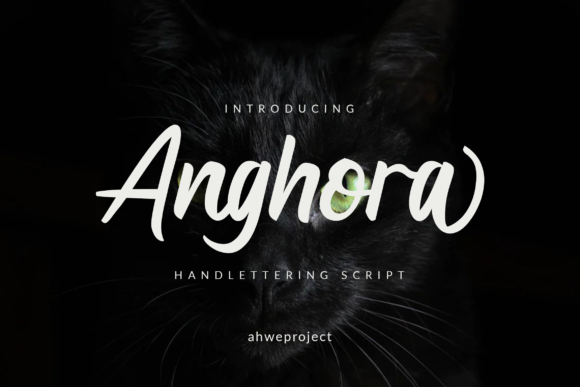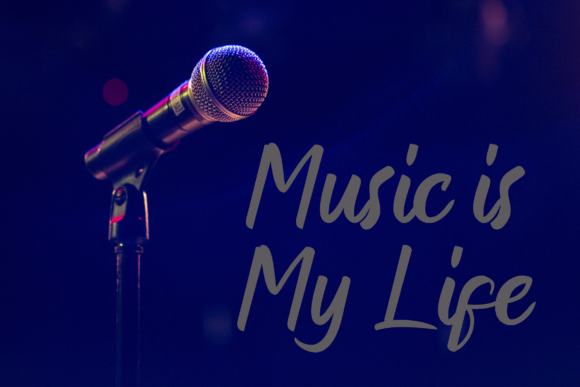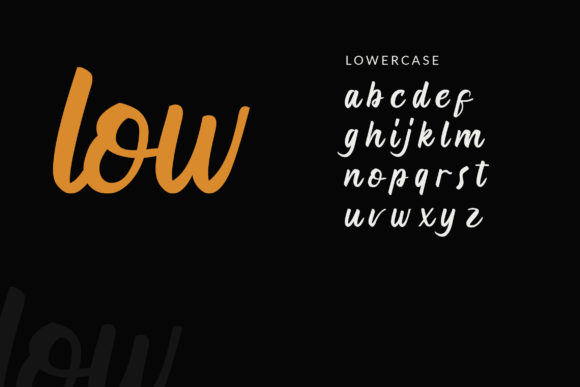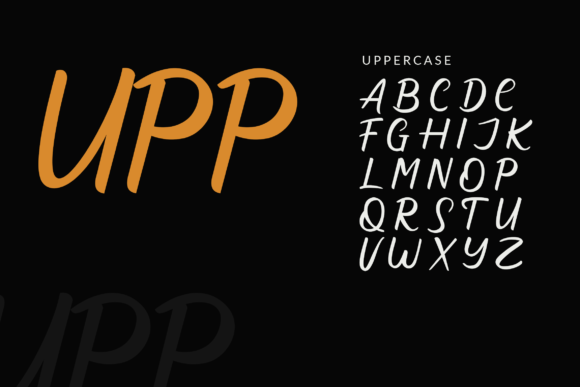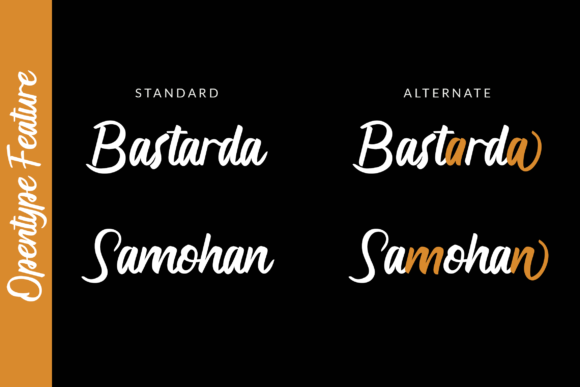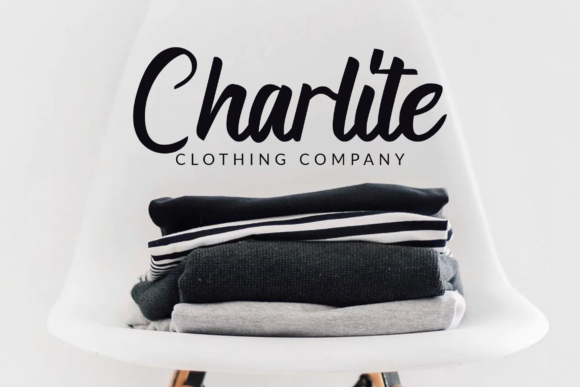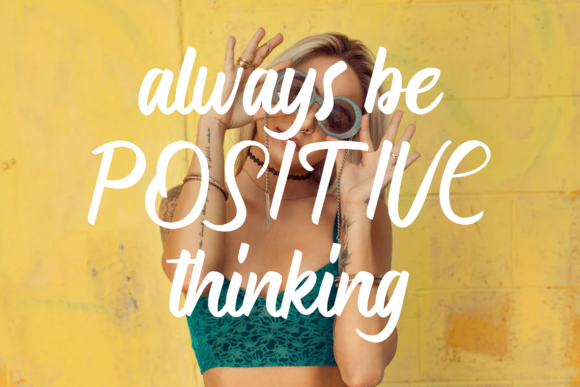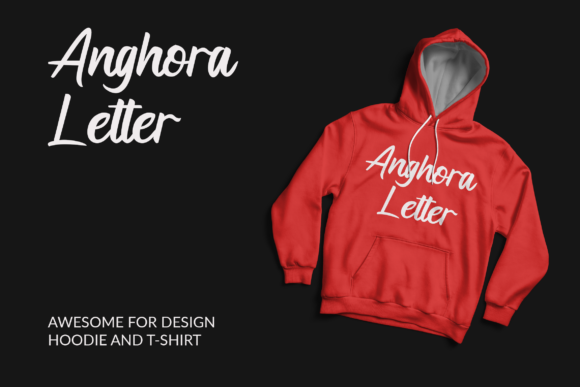
HomeScript FontsAnghora Font Script Fonts Anghora Font FacebookXPinterestWhatsApp Anghora Font Poster 2 Anghora Font Poster 3 Anghora Font Poster 4 Anghora Font Poster 5 Anghora Font Poster 6 Anghora Font Poster 7 Anghora Font Poster 8 About Anghora Font Anghora is a classy and fancy dry brush script with a personal feel. Get inspired by its unique charm! DOWNLOAD ON CREATIVE FABRICAThis font is sold and delivered by Creative Fabrica. Font Canyon may earn a commission if you buy through this link. People also explored Ganerha Authentic Font Elegant Monogram Font Wareng Font Special Xerography Font Unicorn Tall Font Daisy Flowers Font Slimcy Rabbit Font Ollivia Font Marinna Lea Font 332 0 TagsAnghora Font Previous articleMuthiara FontNext articleStellar Font LEAVE A REPLY Cancel reply Comment: Please enter your comment! Name:* Please enter your name here Email:* You have entered an incorrect email address! Please enter your email address here Website: Save my name, email, and website in this browser for the next time I comment. Personal Use Free Hello Sister Personal Use Free Read more about this font 1980 Portable Personal Use Free Read more about this font December Christmas Personal Use Free Read more about this font Vanilla Whale Personal Use Free Read more about this font BLOG How to Install and Use Fonts on Windows, macOS, and Web Projects How to Install and Use Fonts on Windows, macOS, and Web Projects Fonts are a crucial part of design and branding. Whether you’re designing a... Free vs Paid Fonts: Why Investing in Premium Fonts Is Worth It Where to Buy American Fonts Online in 2024 Fonts That Capture the Spirit of New York City